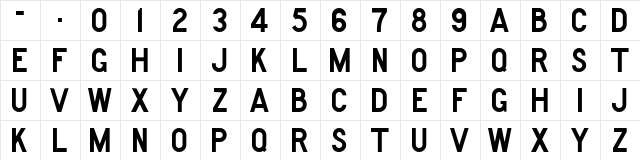
RemcoCommonGothic XPDF Regular
Design Context for RemcoCommonGothic XPDF Typeface
RemcoCommonGothic XPDF takes a clean, functional approach — its unadorned letterforms prioritise legibility and work reliably across screen and print environments.
Font Pairing: Works well alongside a characterful serif or display font that can carry the expressive load while RemcoCommonGothic XPDF handles the functional copy.
Pro Tip: Pair RemcoCommonGothic XPDF with a display or serif font for headlines — its neutral character makes it an excellent supporting player in complex typographic systems.